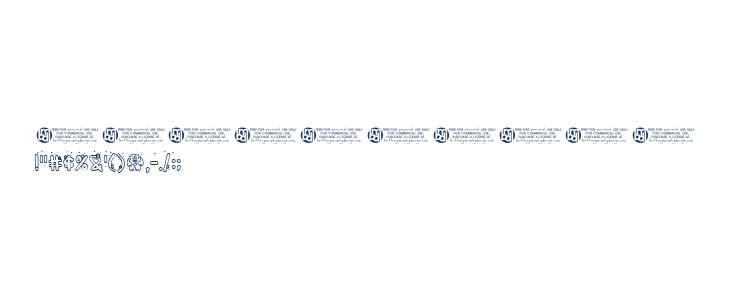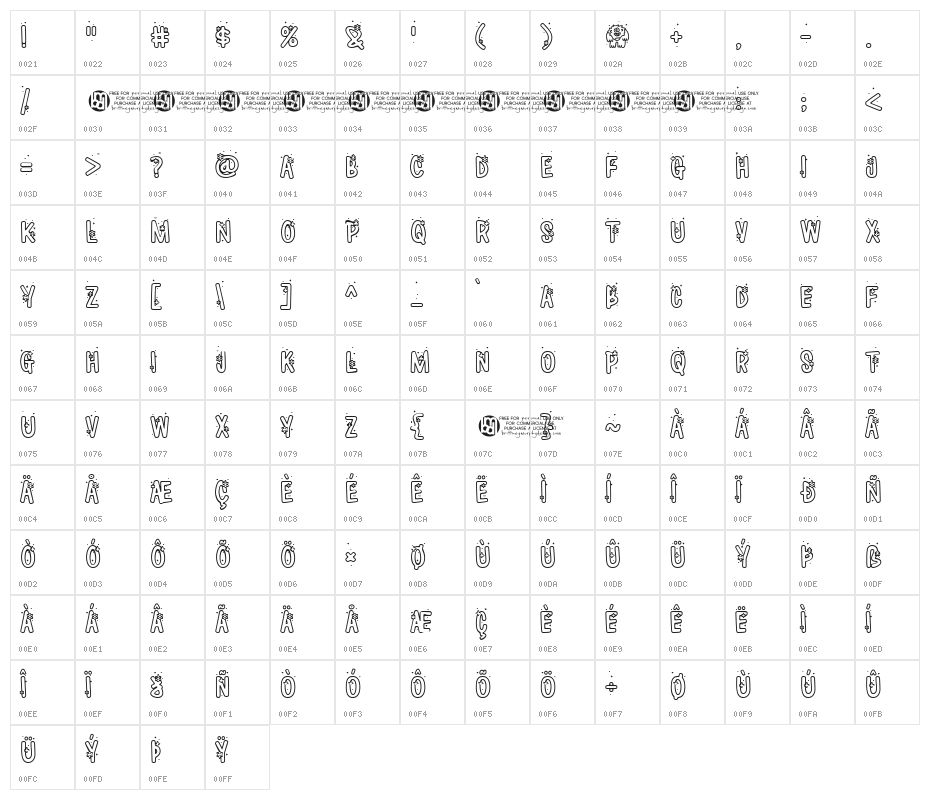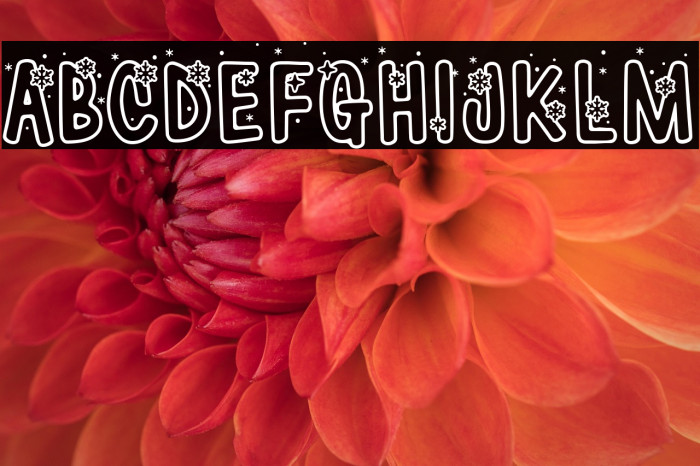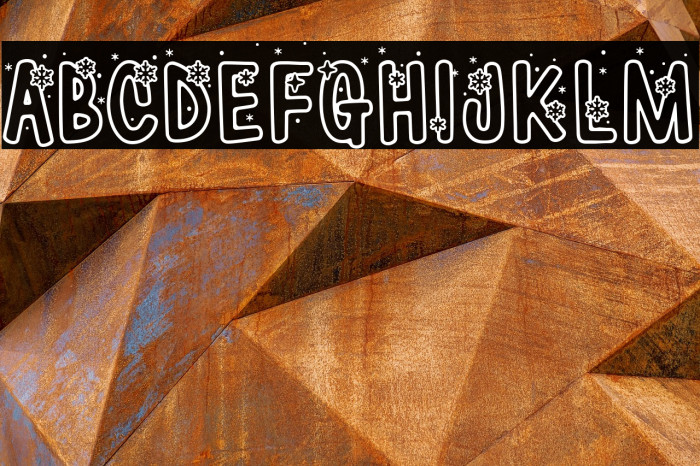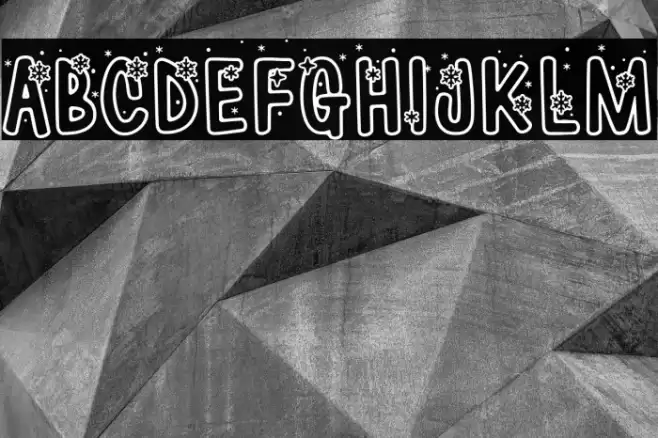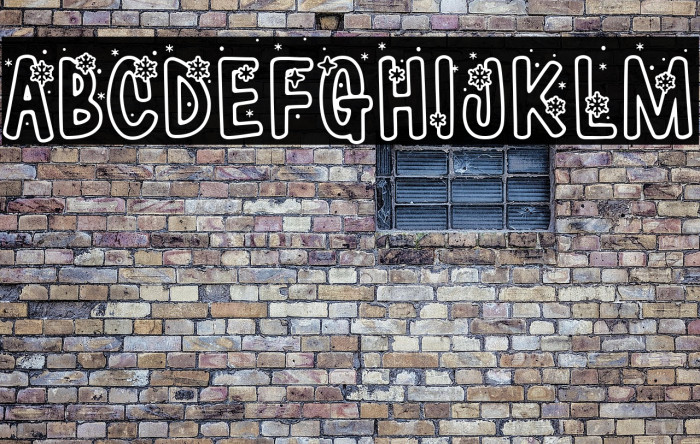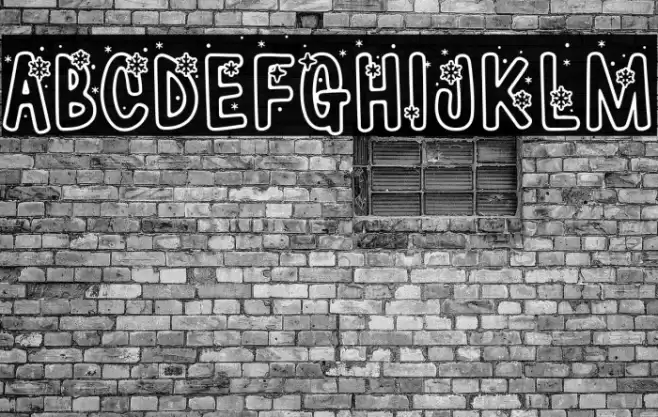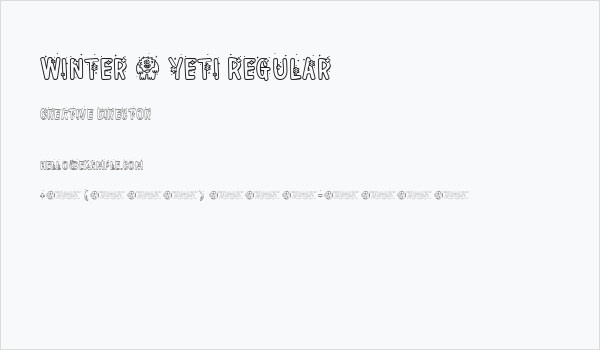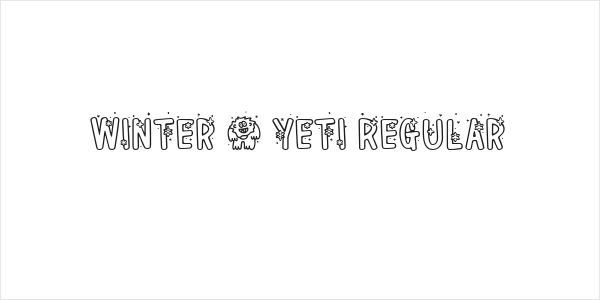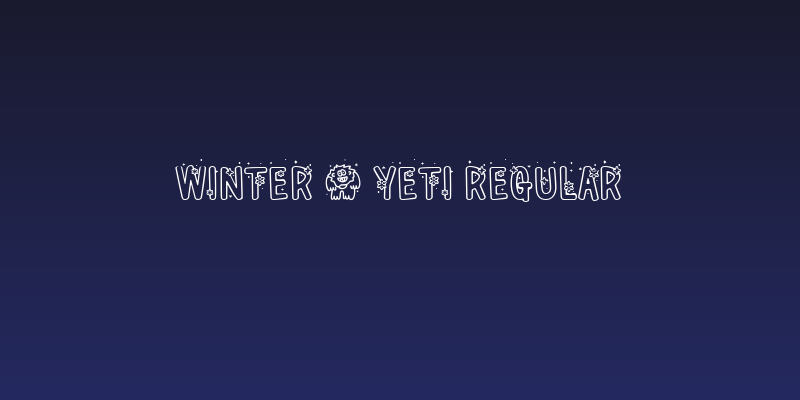
Winter * Yeti Regular Font
Winter * Yeti Regular Description
This playful and whimsical font features bold, uppercase letters adorned with snowflakes and stars, creating a festive and wintery feel. The characters have a cartoonish outline that adds a touch of fun and creativity. The font includes both uppercase and lowercase letters, numbers, and a variety of special characters, each maintaining the same decorative style. The overall design is eye-catching and perfect for holiday-themed projects or any design that requires a touch of whimsy and charm.
| Proposed Projects | Ideal for holiday cards, festive banners, children's book covers, and winter-themed event invitations. |